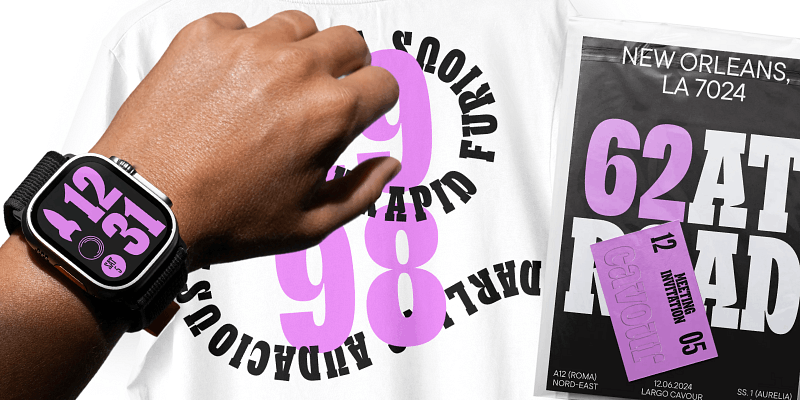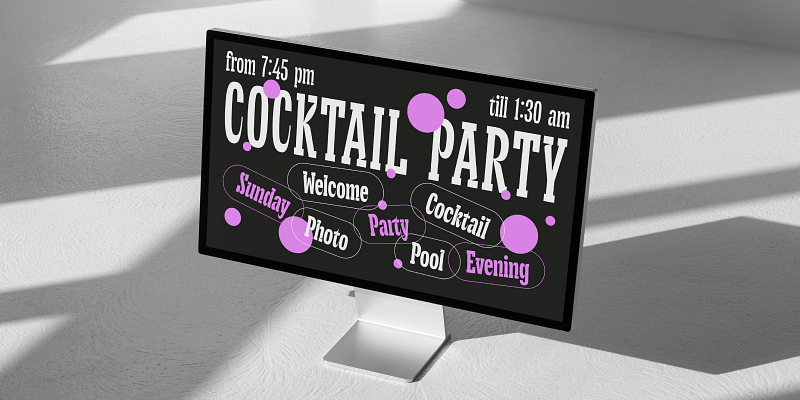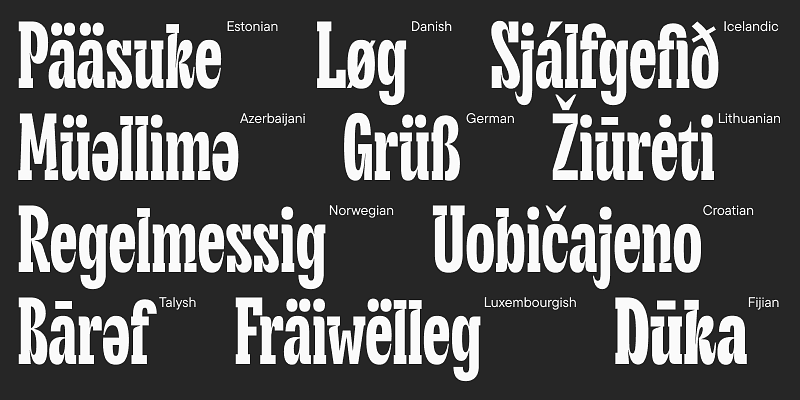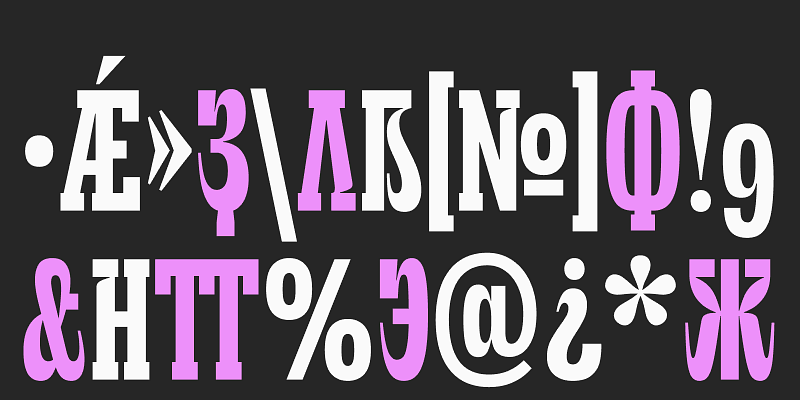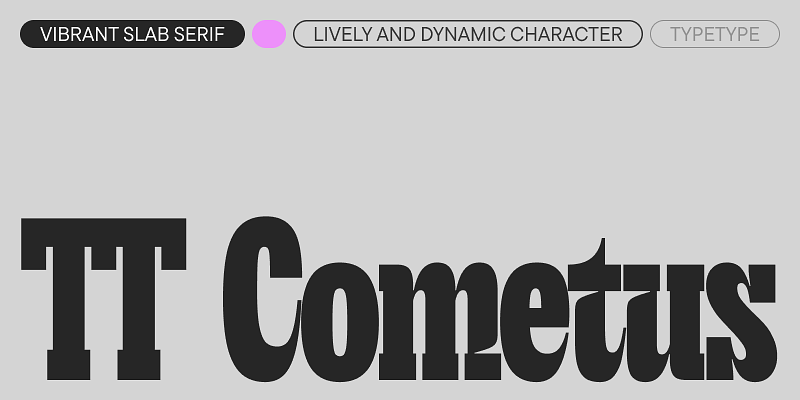
TT Cometus is a modern slab serif. The typeface’s name evokes the image of a comet—a powerful and weighty celestial body with a beautiful tail slicing through space at an incredible speed. This is the key to understanding this font. The font embodies a balanced personality: impressive and sturdy but energetic and dynamic at the same time.
TT Cometus shines best in large point sizes. This font is anything but neutral! It’s eye-catching and looks flawless in headlines, logos, and branding – wherever attention needs to be captured.